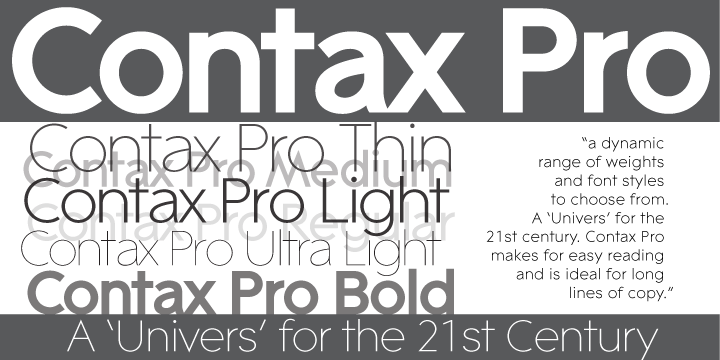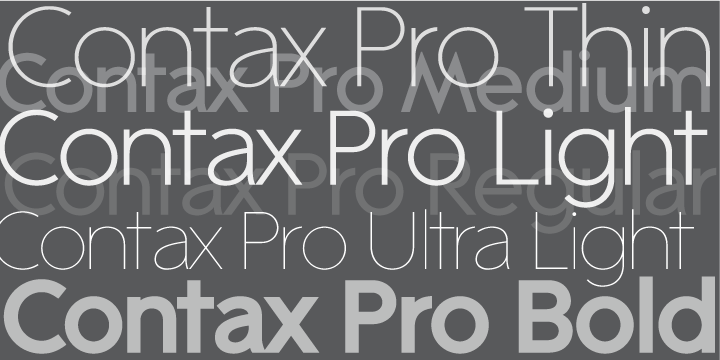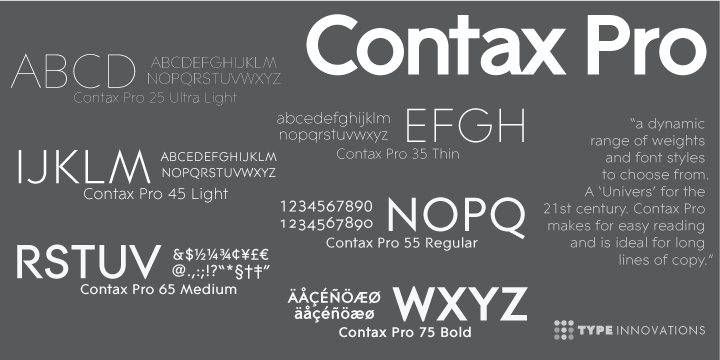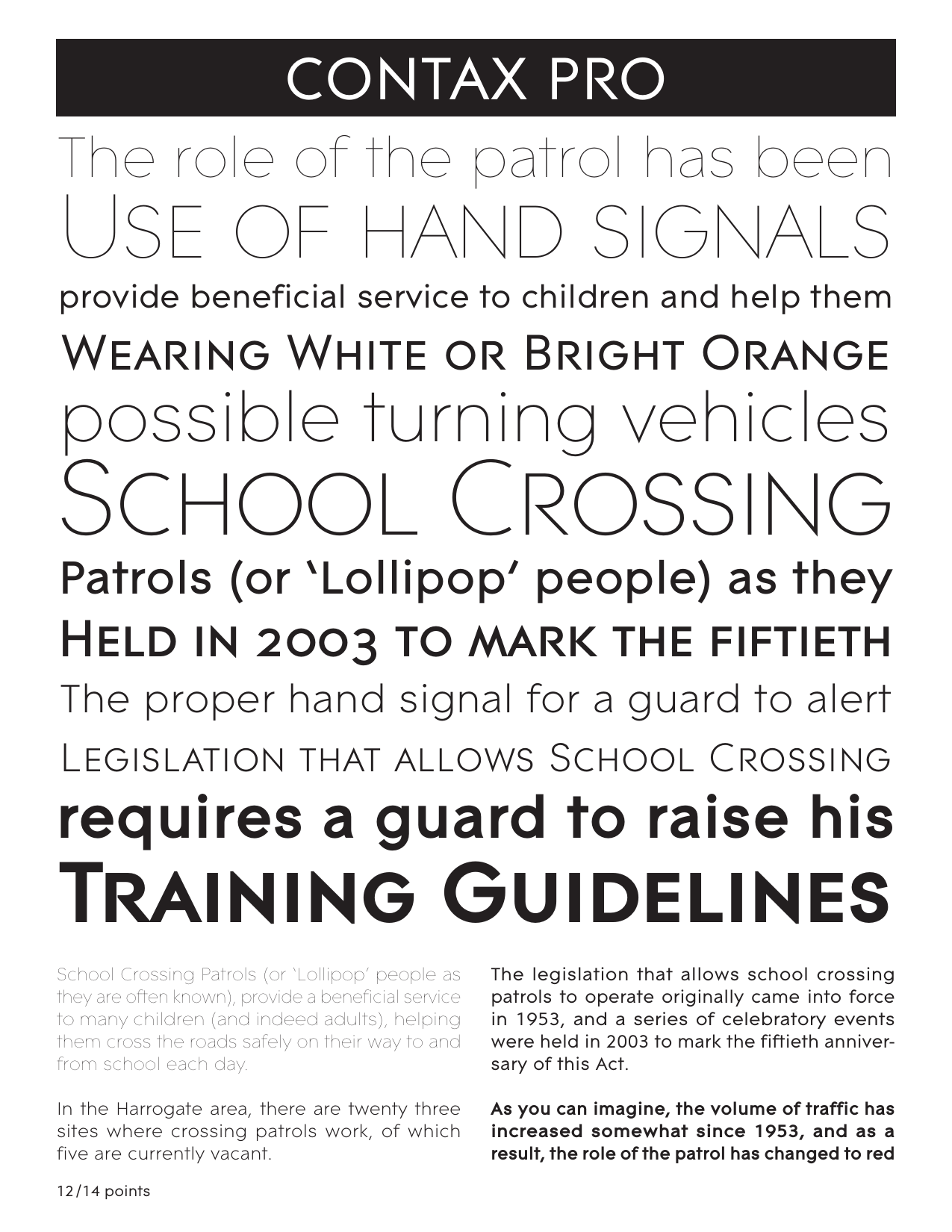
Contax Pro Collection
ItalicThe Contax Pro font is a premium, paid font designed by Alex Kaczun and published by Type Innovations. It is a contemporary, geometric sans-serif typeface known for its clean lines, generous proportions, and readability, making it ideal for long lines of copy, branding, web design, and editorial projects. The font family includes 18 styles, such as ultra light, thin, light, regular, medium, and bold, along with true drawn italics, small capitals, and old-style figures.